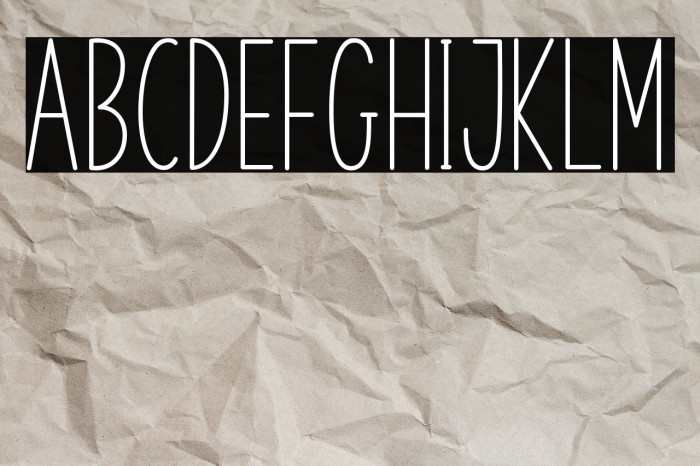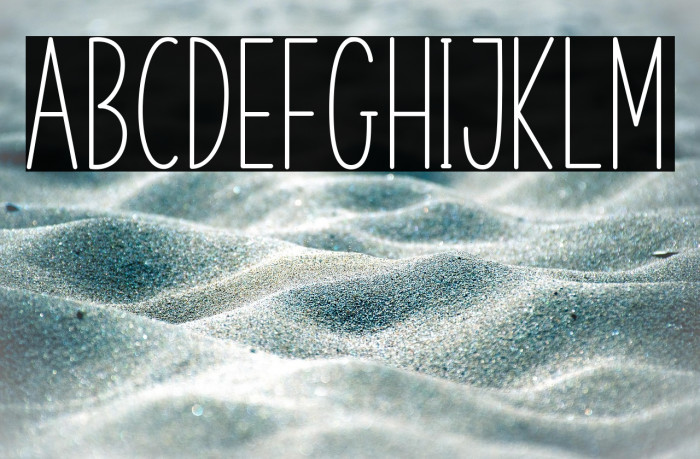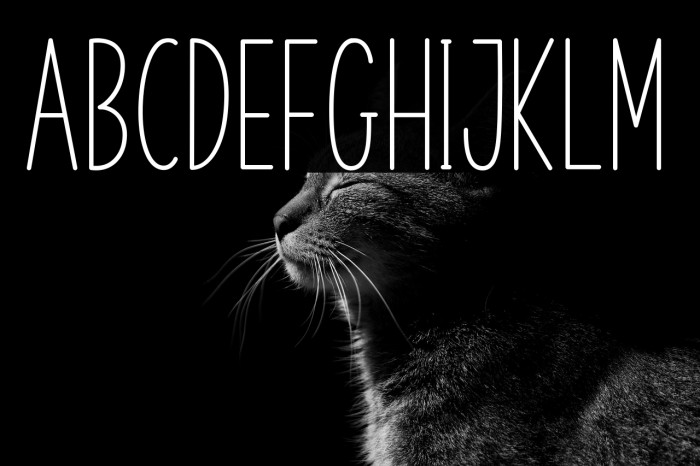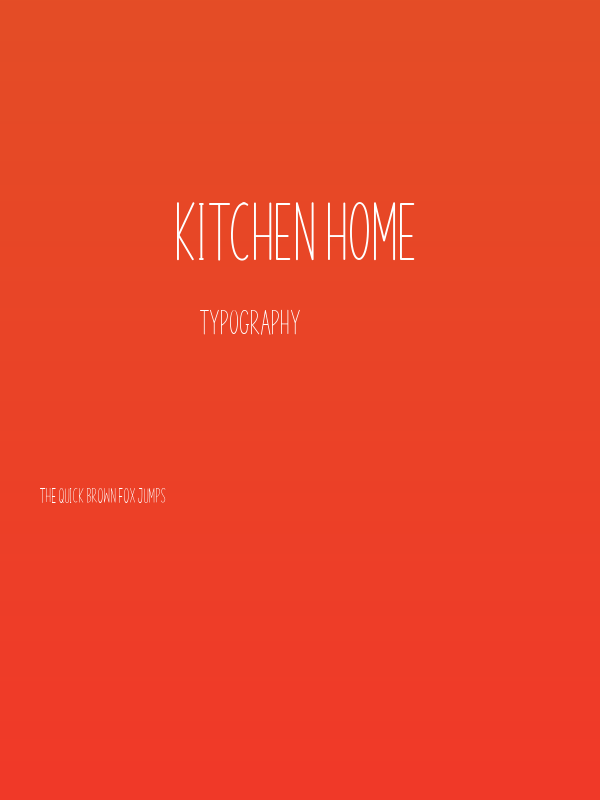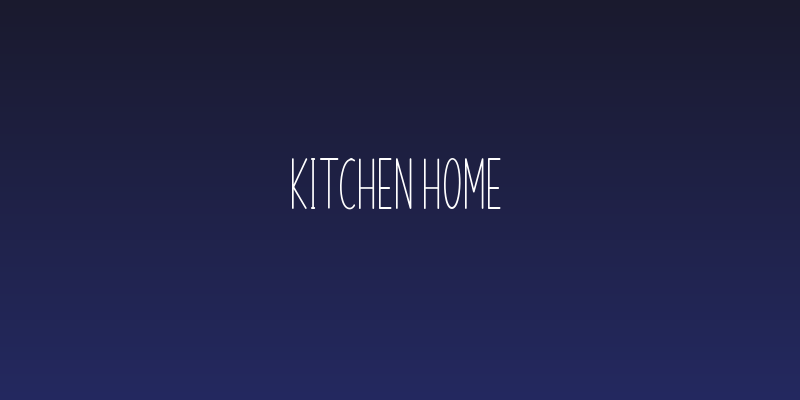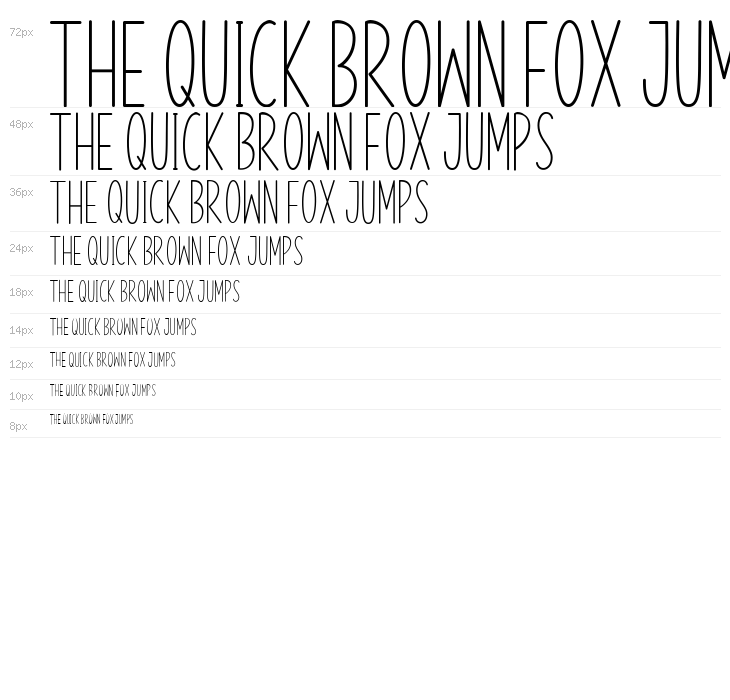
Kitchen Home Font
Kitchen Home Description
This font features tall, slender characters with a modern and minimalist aesthetic. The strokes are consistent in width, giving it a clean and uniform appearance. The uppercase letters are particularly elongated, creating a sense of elegance and sophistication. The lowercase letters maintain this slender form, contributing to a cohesive look across the typeface. The numerals are similarly styled, ensuring readability while maintaining the font's distinctive style. Special characters are designed to match the overall aesthetic, with a focus on simplicity and clarity. This font is well-suited for projects that require a contemporary and stylish touch.
| Proposed Projects | Ideal for fashion magazines, modern branding, minimalist posters, and elegant invitations. |